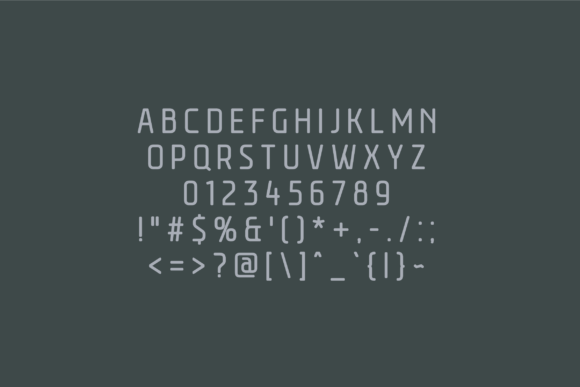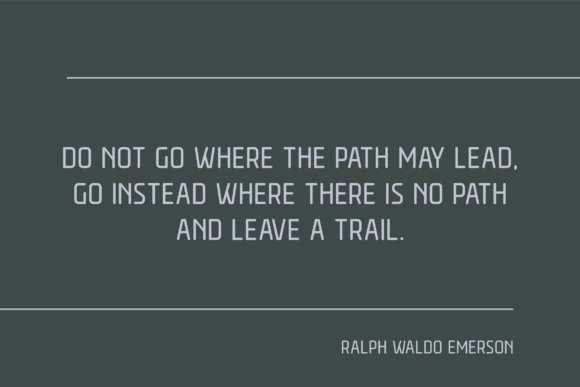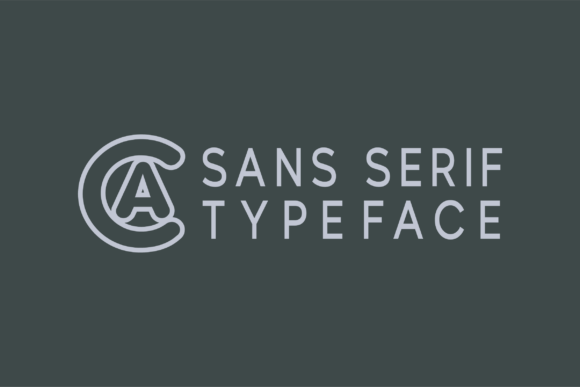
Experience the Charm of Danaela: A Sophisticated Sans Serif Font
In the world of typography, a good font can make all the difference in elevating your design to the next level. Introducing Danaela, a contemporary sans serif font that embodies sophistication and elegance. With its intricate design and versatile features, Danaela is the perfect choice for designers and crafters looking to add a touch of style to their creative projects.
What Makes Danaela Special?
Danaela is more than just a font – it’s a design experience. Comprising upper-case characters, numbers from 0-9, and a diverse collection of punctuation marks and symbols, this font has everything you need to bring your ideas to life. Its clean and modern aesthetic makes it perfect for a wide range of applications, from wedding announcements and quotes to advertisements and magazine prints.
One of the standout features of Danaela is its versatility. This font is designed to be used in a multitude of contexts, making it an excellent addition to any designer’s toolkit. Whether you’re creating:
- Inviting wedding announcements that set the tone for a special day
- Engaging quotes that inspire and motivate
- Eye-catching advertisements that grab attention
- Glossy magazine prints that showcase your brand’s personality
Danaela effortlessly enhances your creative design journey. Its high-end aesthetic makes it an ideally streamlined solution for emblematic logo designs, ensuring that your brand’s visual identity is always on point.
Where Style Meets Functionality
In the realm of typefaces, Danaela represents the perfect fusion of style and functionality. This font is not just about looks – it’s also designed to be highly functional. With Danaela, you can:
- Convey your message with clarity and precision
- Add a touch of sophistication to your designs
- Enhance your brand’s visual identity
- Elevate your design to the next level
Why Choose Danaela?
With so many fonts available, why choose Danaela? Here are just a few reasons why designers and crafters are falling in love with this amazing font:
- Unique and Modern Aesthetic: Danaela’s clean and contemporary design sets it apart from other fonts.
- Highly Versatile: Use Danaela in a wide range of applications, from digital designs to print materials.
- Easy to Read: Danaela’s clear and legible design ensures that your message is conveyed with precision.
- Perfect for Logo Design: Danaela’s high-end aesthetic makes it an excellent choice for emblematic logo designs.
Get Creative with Danaela
Ready to experience the charm of Danaela for yourself? Whether you’re a designer, crafter, or simply someone who appreciates great typography, Danaela is sure to inspire your creative journey. With its sophisticated and contemporary design, this font is the perfect choice for anyone looking to elevate their designs and add a touch of style to their projects.
In conclusion, Danaela is a game-changing font that is sure to revolutionize the way you approach design. With its intricate design, versatile features, and high-end aesthetic, Danaela is the perfect choice for designers and crafters looking to add a touch of sophistication to their creative projects. Experience the charm of Danaela today and discover a world of limitless design possibilities!